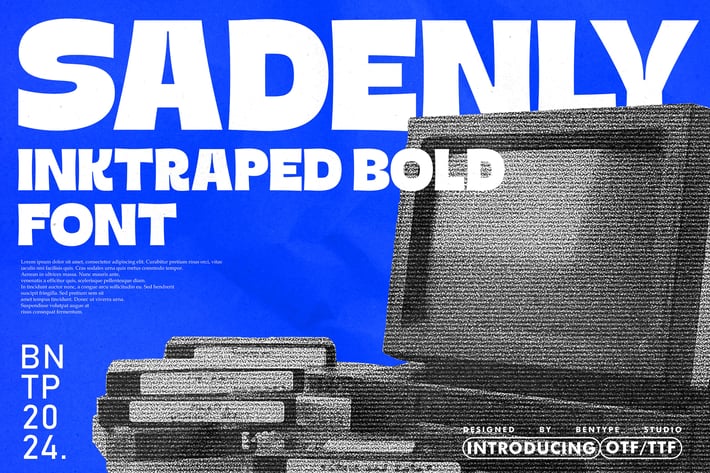
Sadenly - Inktraped Bold Font
bentype
Sadenly - Inktraped Bold Font is a brutalism sans display font with several unique stems and joins. Despite their limitations in character set and resolution, remain popular among designers for their distinct visual appeal and nostalgic charm, this font is suitable for your design needs for displays, headlines, banners etc.